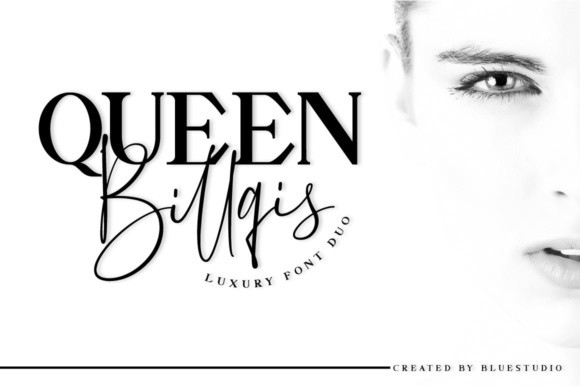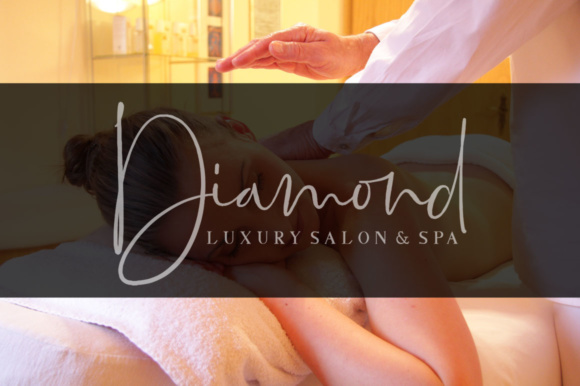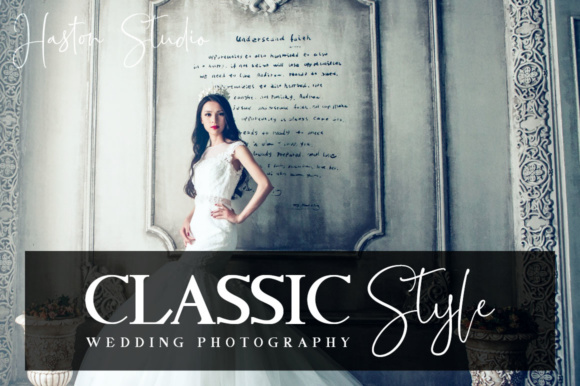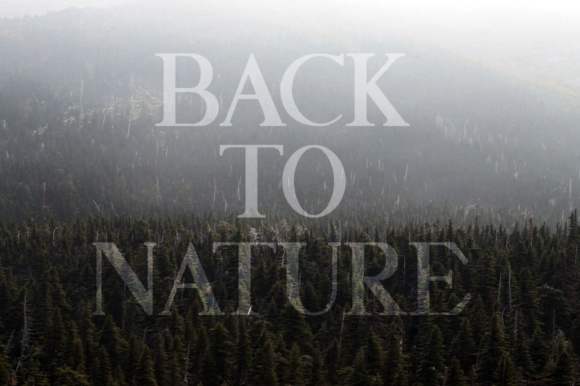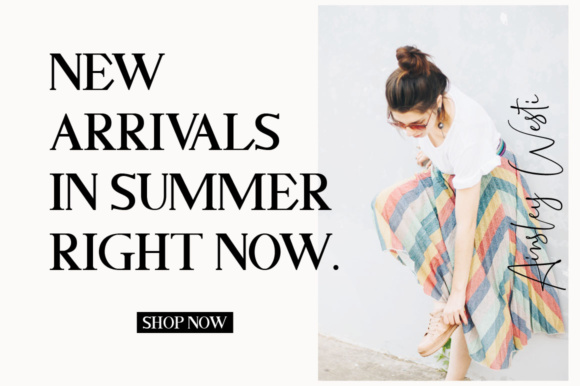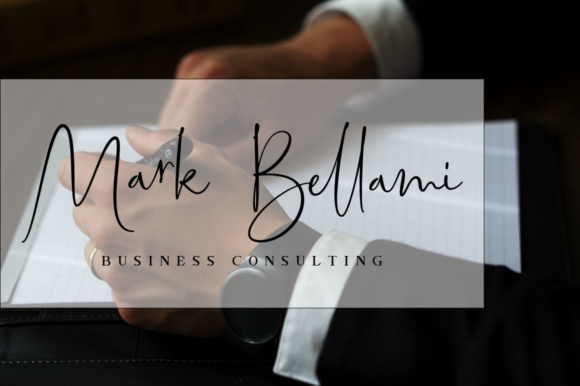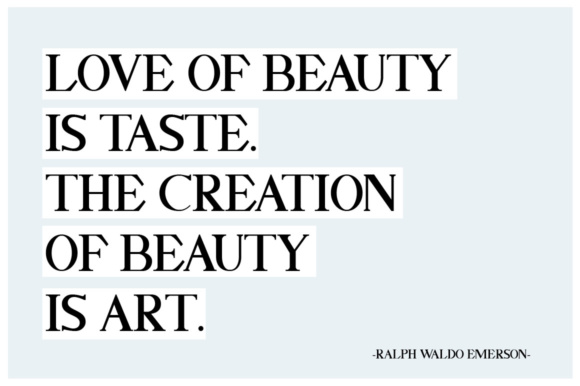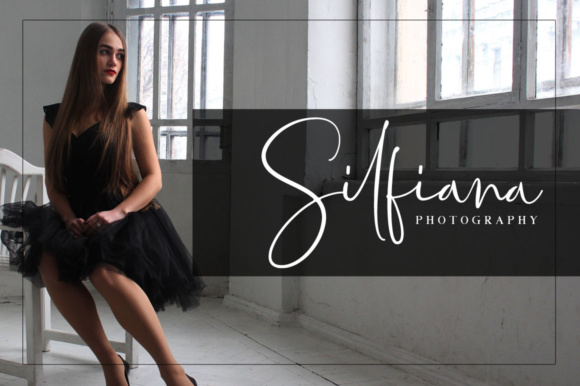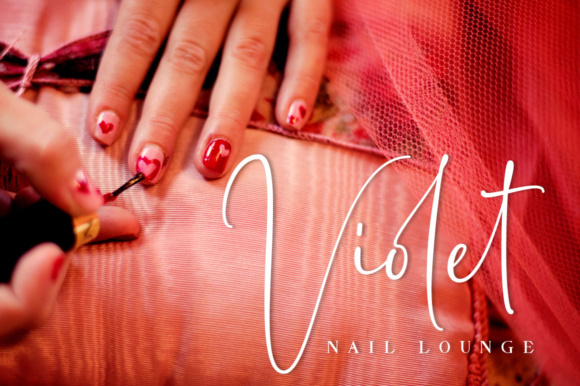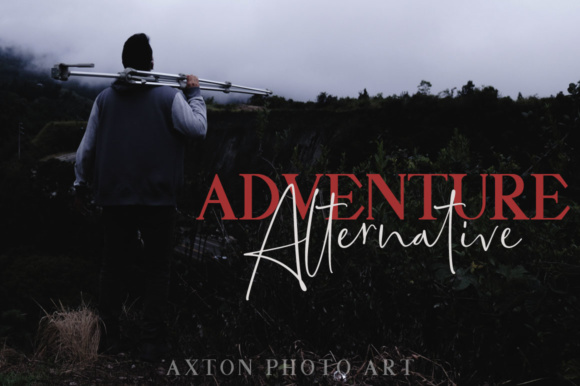
Queen Billqis Duo Font
About Queen Billqis Duo Font
This Queen Billqis luxury font duo consists of a modern and elegant serif font, paired with a script font in a natural handwriting style.
This duo offers a beautiful typographic harmony for a variety of design projects, including logos & branding, wedding designs, social media posts, advertisements, and much more!